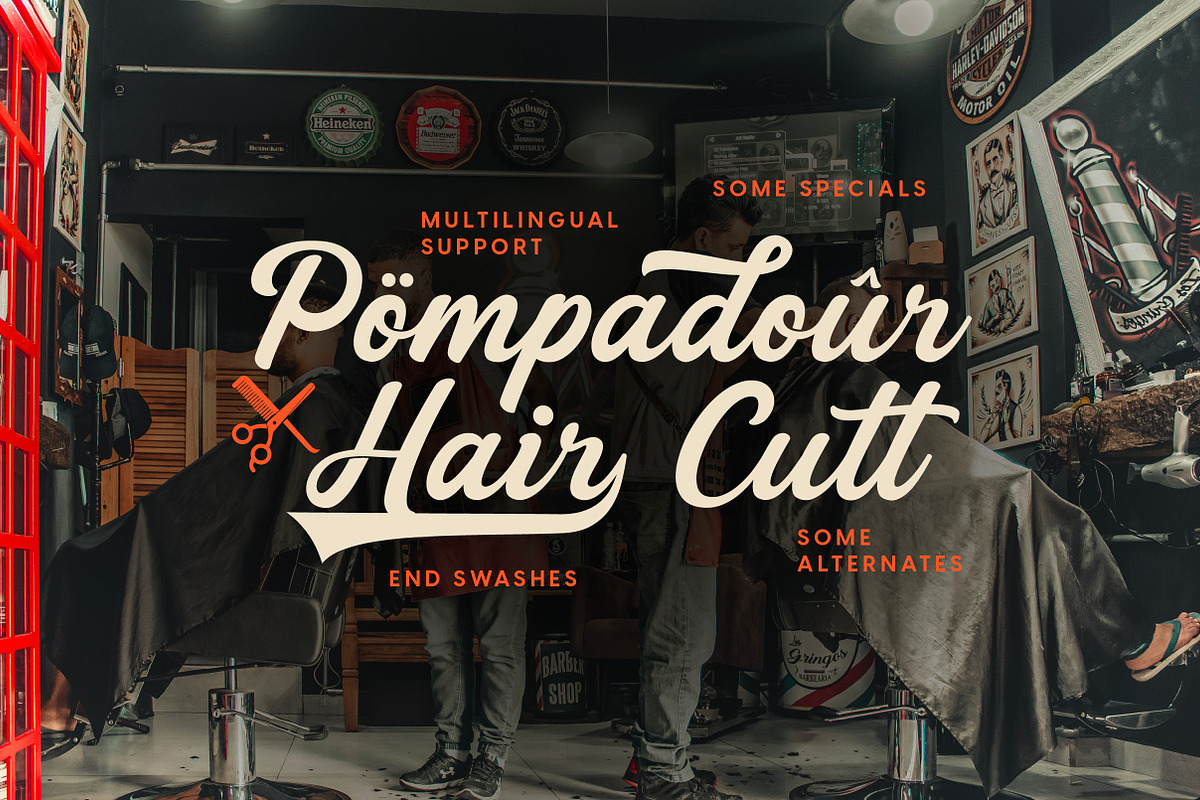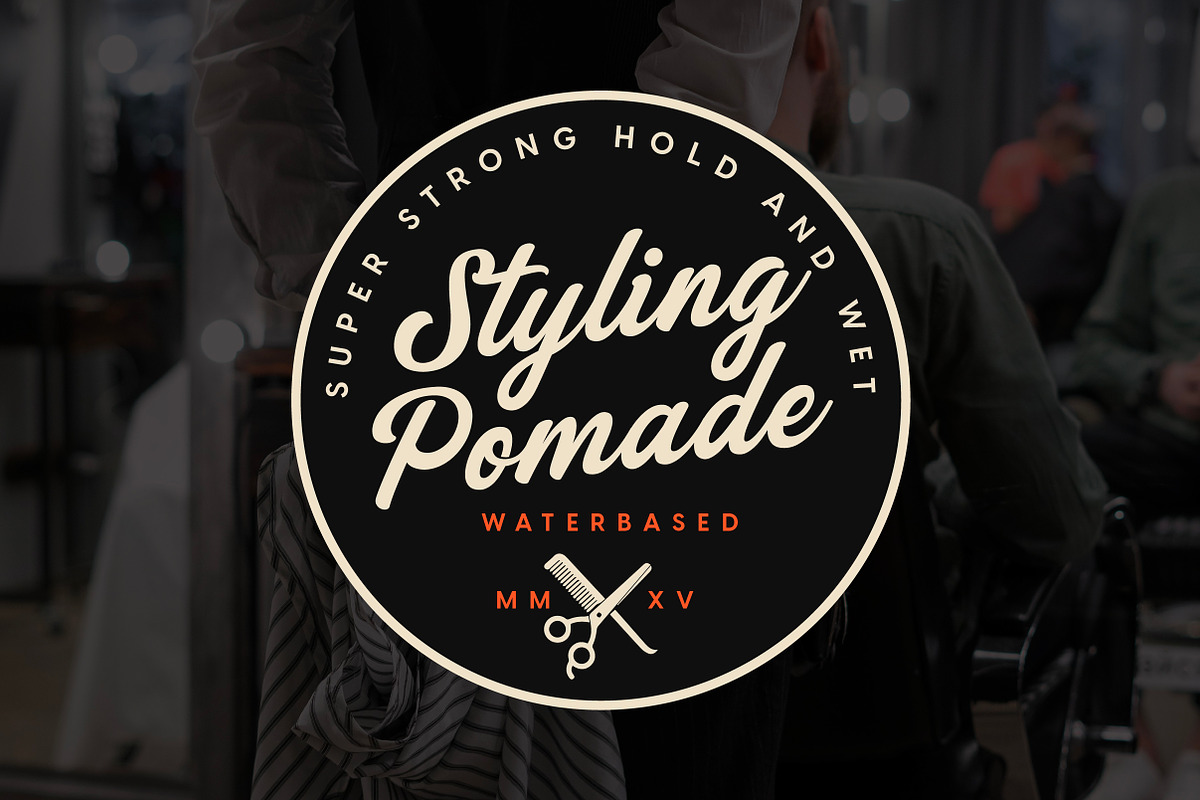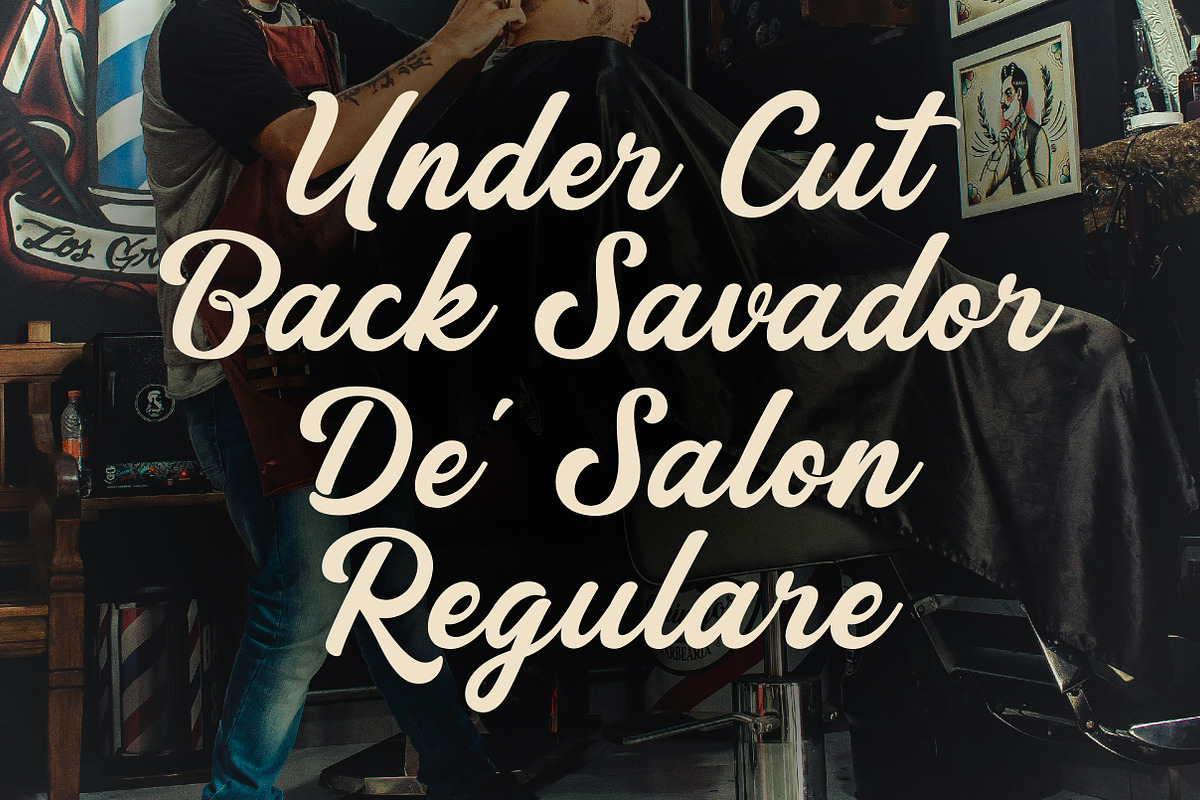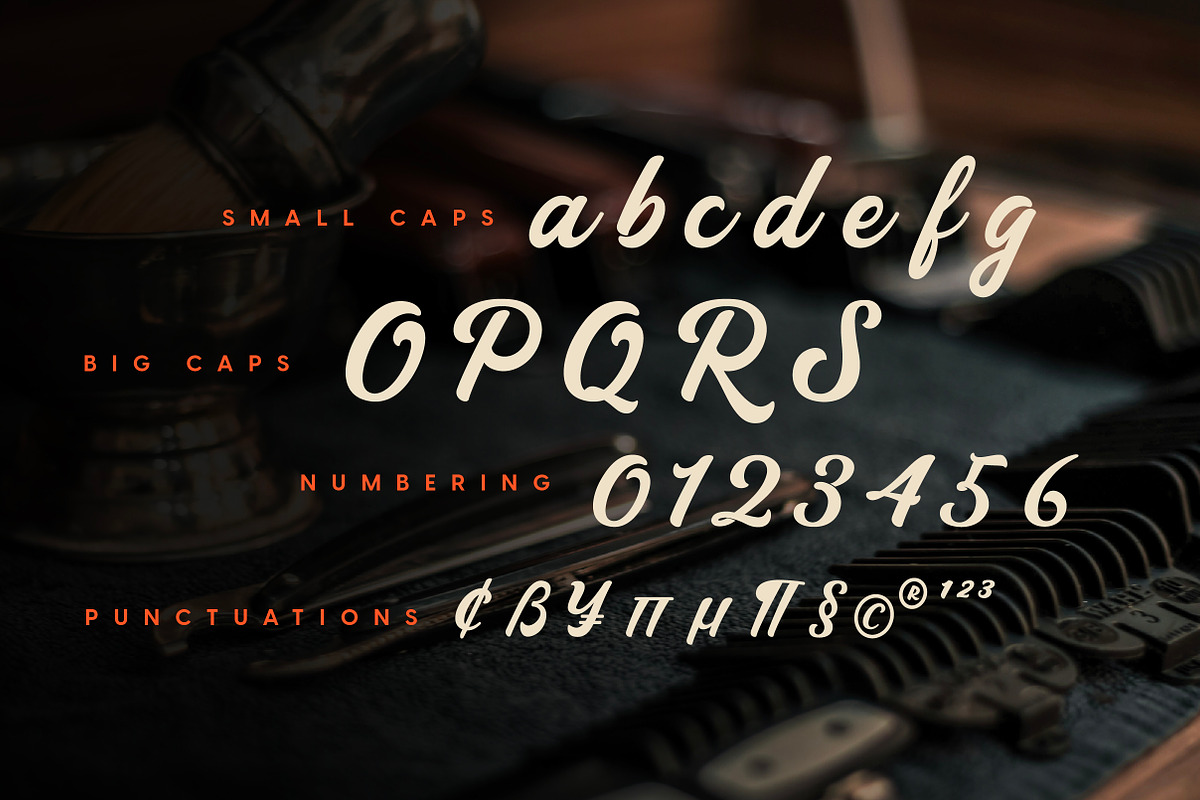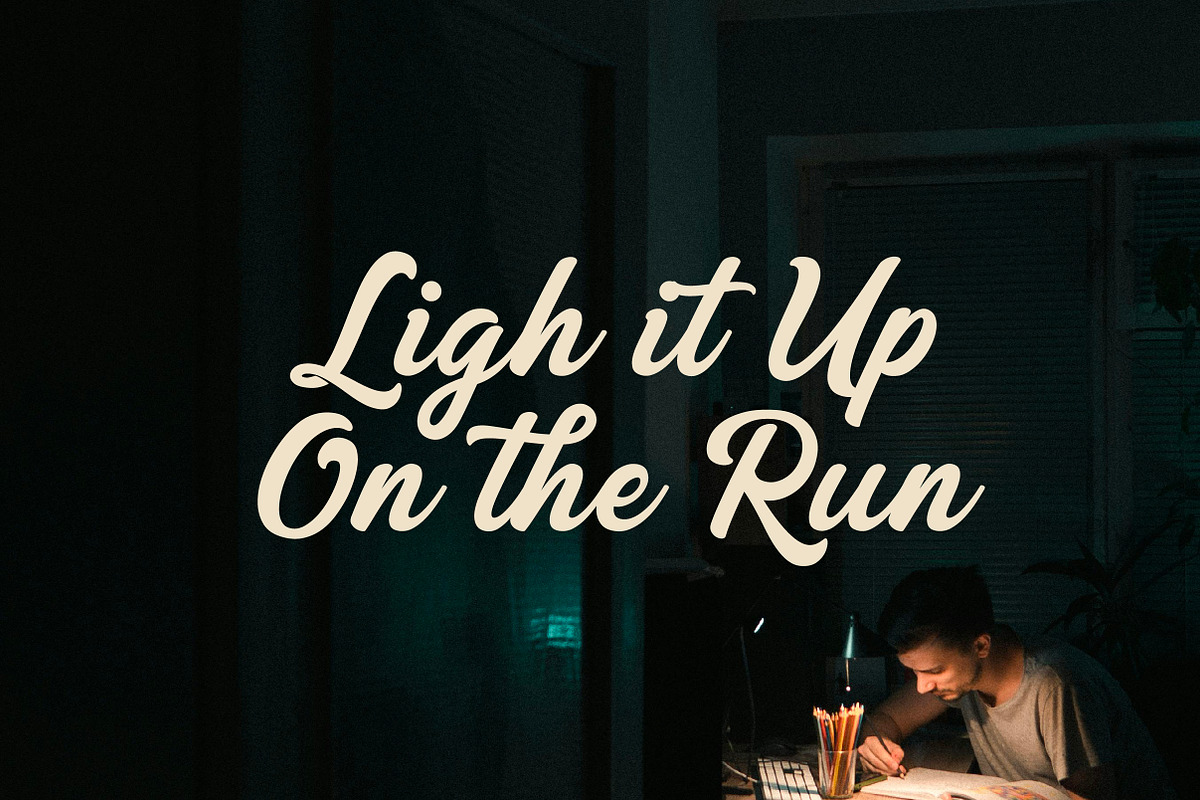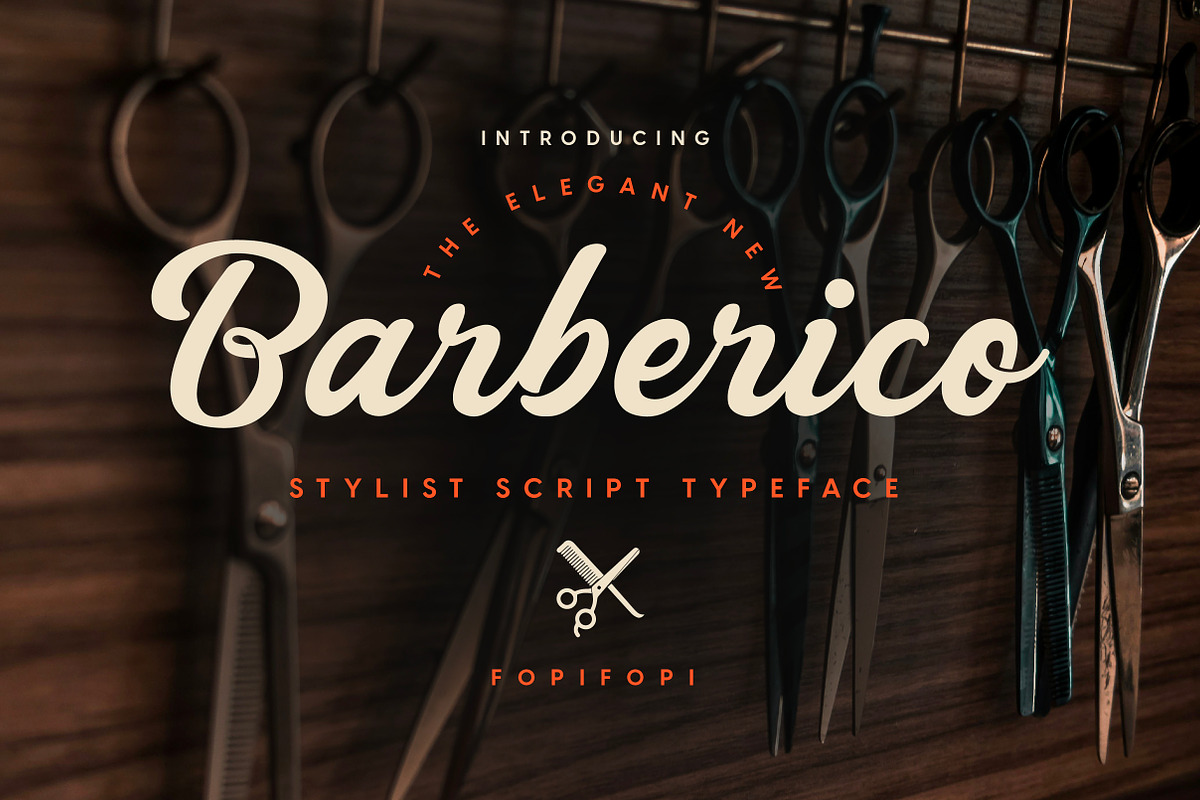
Barberico: The Bold & Stylish Script
Barberico: The Bold & Stylish Script Typeface Inspired by Barbershop Culture
Step into the world of sharp cuts and classic style with Barberico, a sophisticated script typeface crafted to reflect the timeless charm of barbershop culture. Designed for creatives who crave elegance with a rugged edge, Barberico brings a sense of tradition and authenticity to your designs.
✨ Authentic Barbershop Vibes Inspired by vintage signage and the craftsmanship of barbershop artistry, Barberico blends smooth curves with bold strokes, making it ideal for brands that embrace a strong yet elegant identity.
💡 Versatile Styling Options Barberico offers a complete set of:
Small Caps for delicate yet impactful details
Big Caps that demand attention
Numbering that maintains style and readability
Punctuations & Symbols for versatile creative needs
🔄 Multilingual Support Designed to connect with audiences worldwide, Barberico includes special characters and accents to meet diverse language needs.
🪄 Signature Swashes & Alternates Barberico’s elegant swashes and stylistic alternates add a personalized touch, perfect for creating logos, headlines, or standout text elements.
Barbershop Branding
Vintage Posters & Flyers
Men’s Grooming Products
Apparel Designs
Tattoo Parlors & Lifestyle Brands
Bring your designs to life with the bold charisma of Barberico — where style meets precision, and tradition meets trend. Whether you're crafting a modern logo or a vintage-inspired poster, Barberico ensures your message is as sharp as a fresh fade.